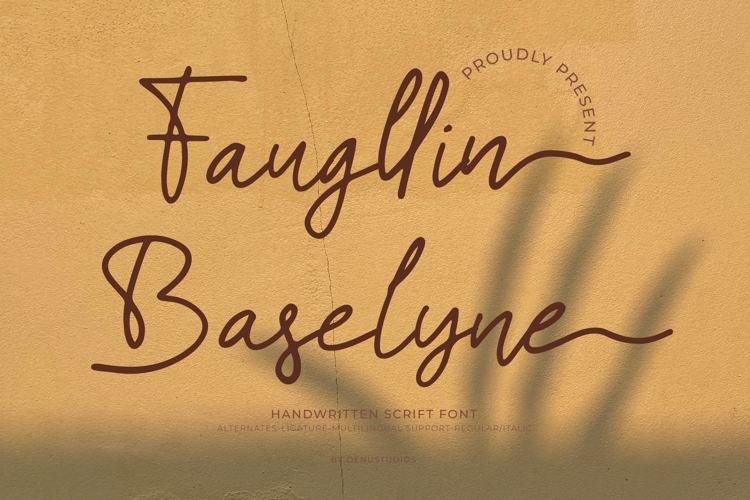
Faugllin Balseyn Font
Faugllin Balseyn | Handwritten Font
is suitable for any projects such as: logos, branding projects, homeware designs, product packaging, mugs, quotes, posters, shopping bags, t-shirts, book covers, name card, invitation cards, greeting cards, label, photography, watermark, special events, and all your other lovely projects that need a beautiful script taste.